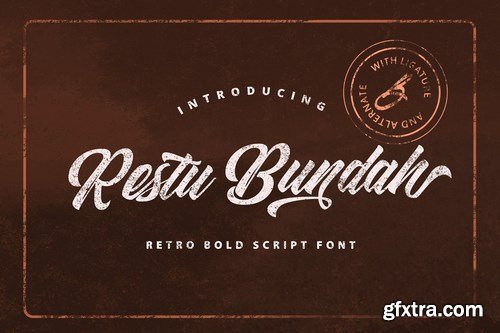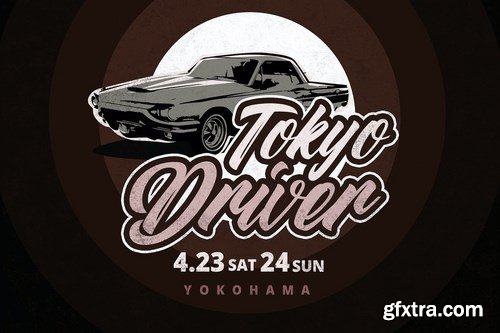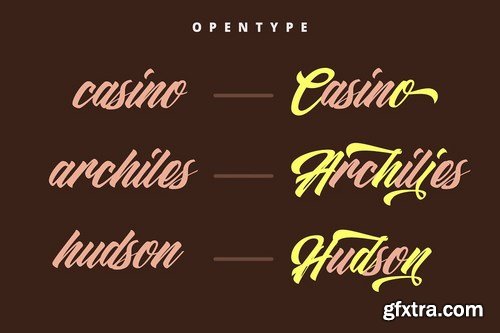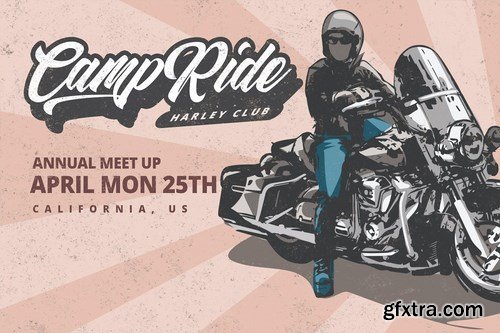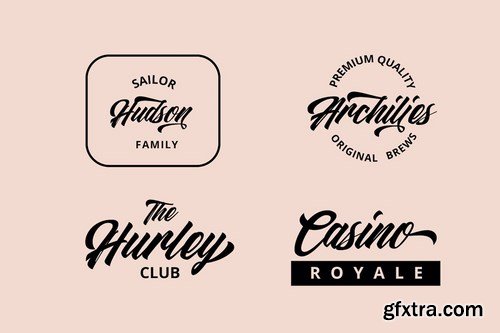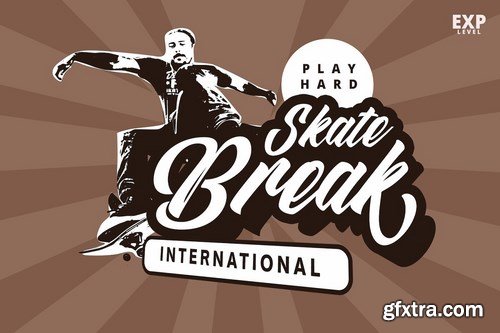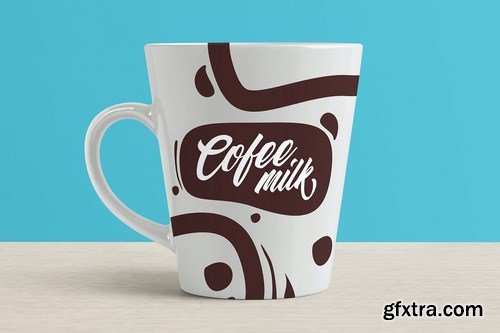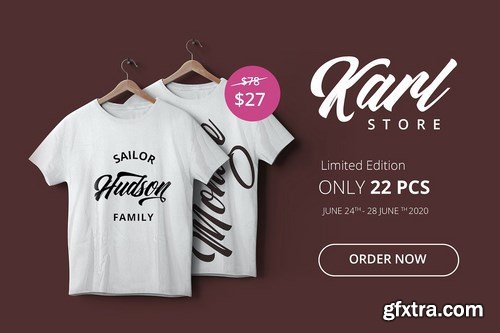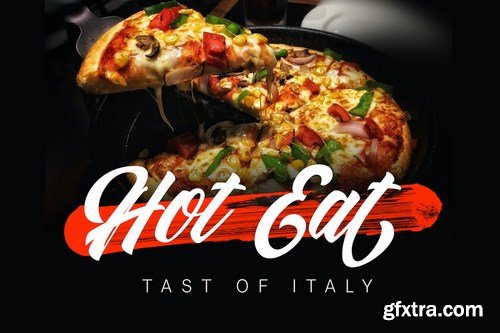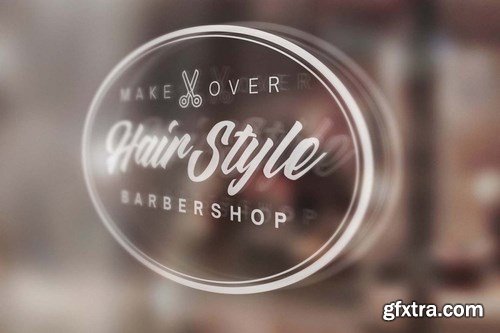
Restu Bundah is a Retro bold script with Groovy style, unique design taste and combine with classic retro style of the 80s, trendy, vintage, and sporty. The Restu Bundah is perfect for retro lovers, besides this font is also perfect if used for brands such as: barbershop, motorcycle club, clothing, logo brand, coffee shop, shoe brands, hipster and many more.